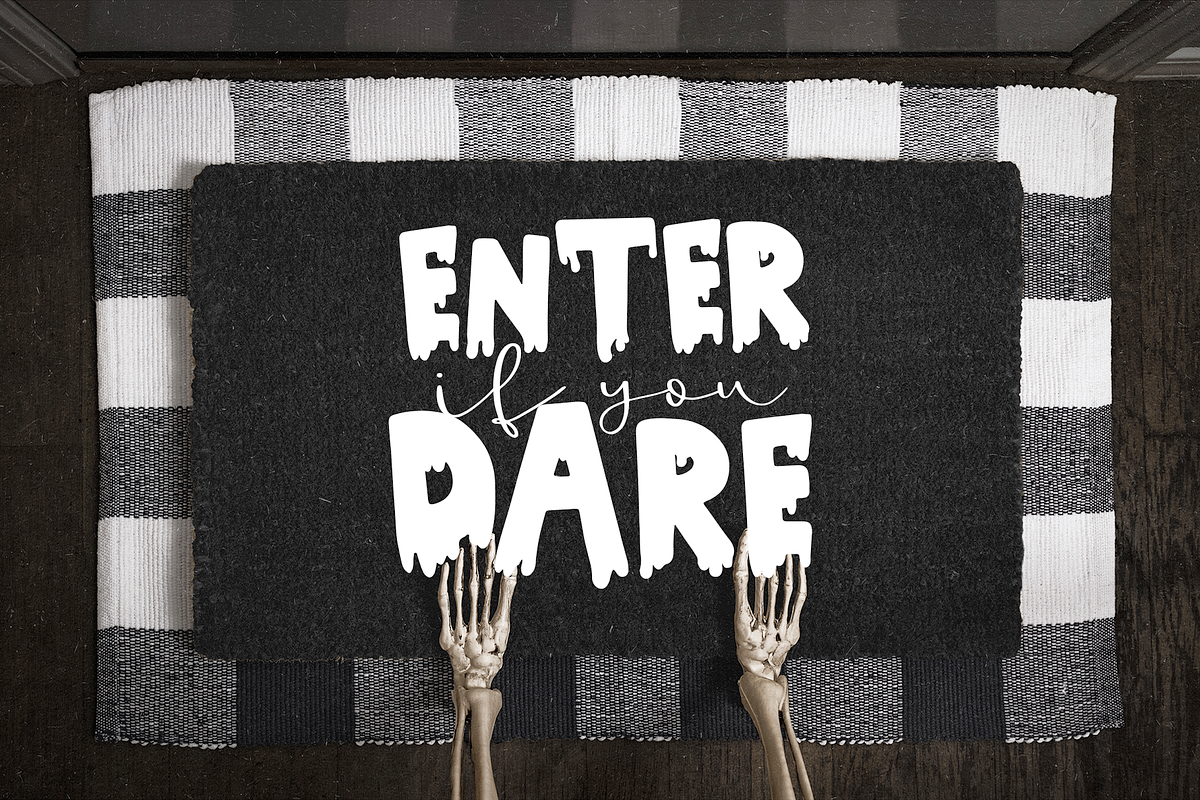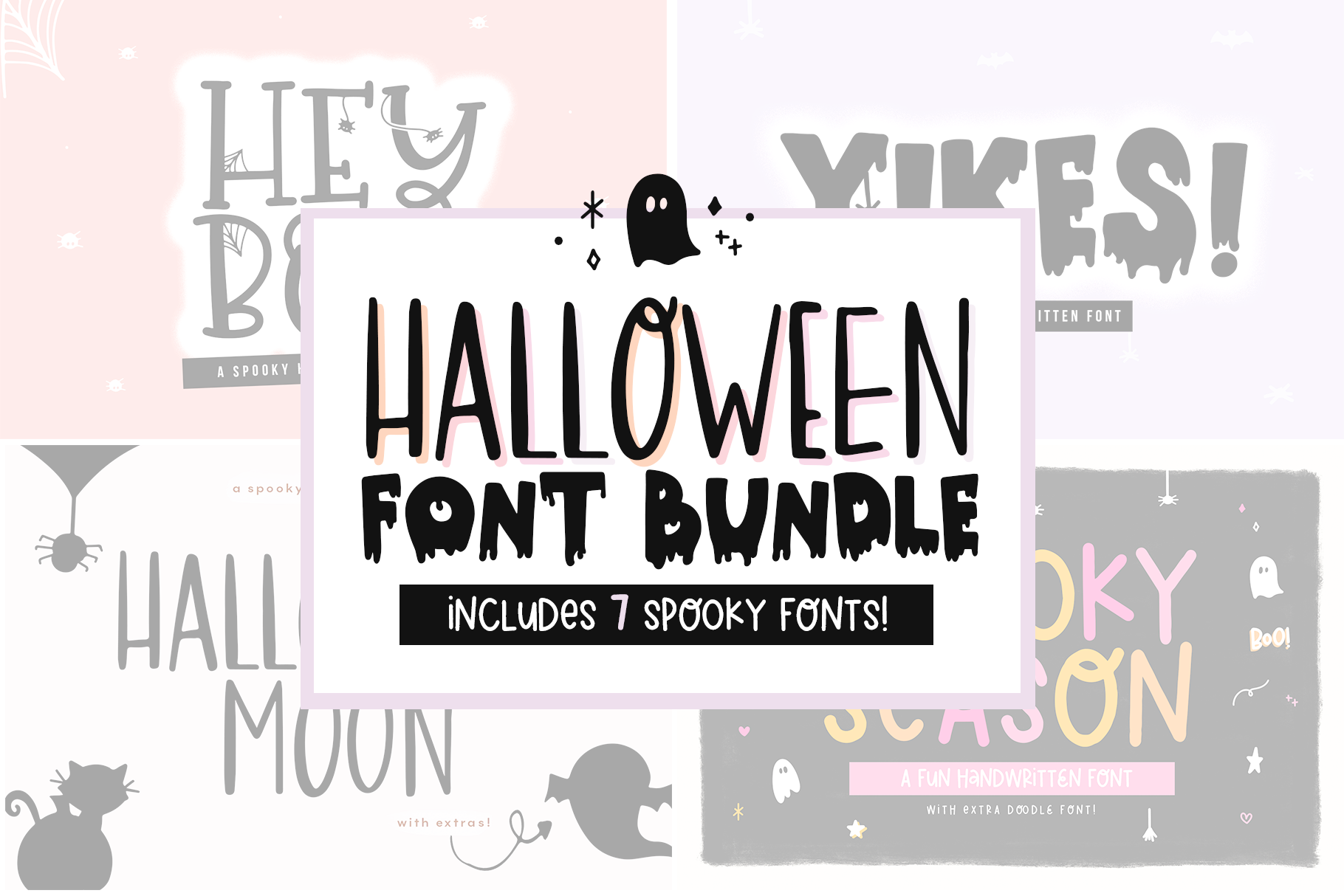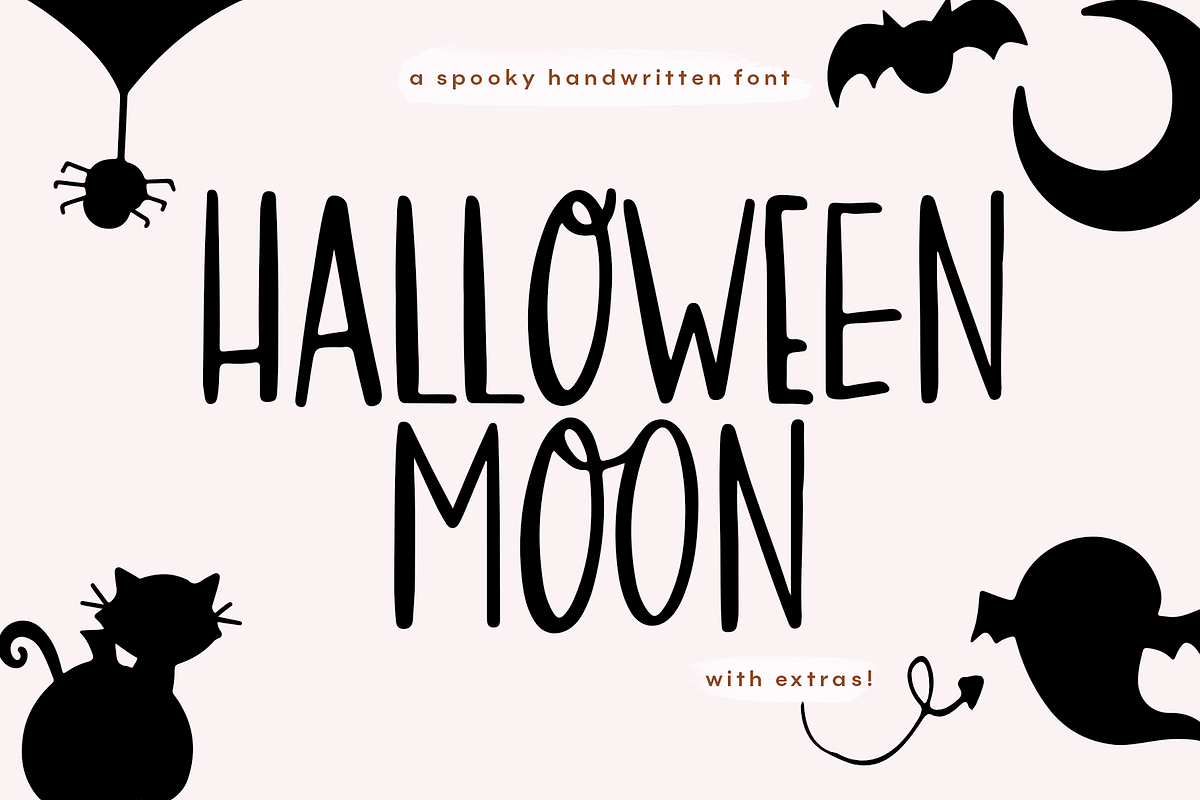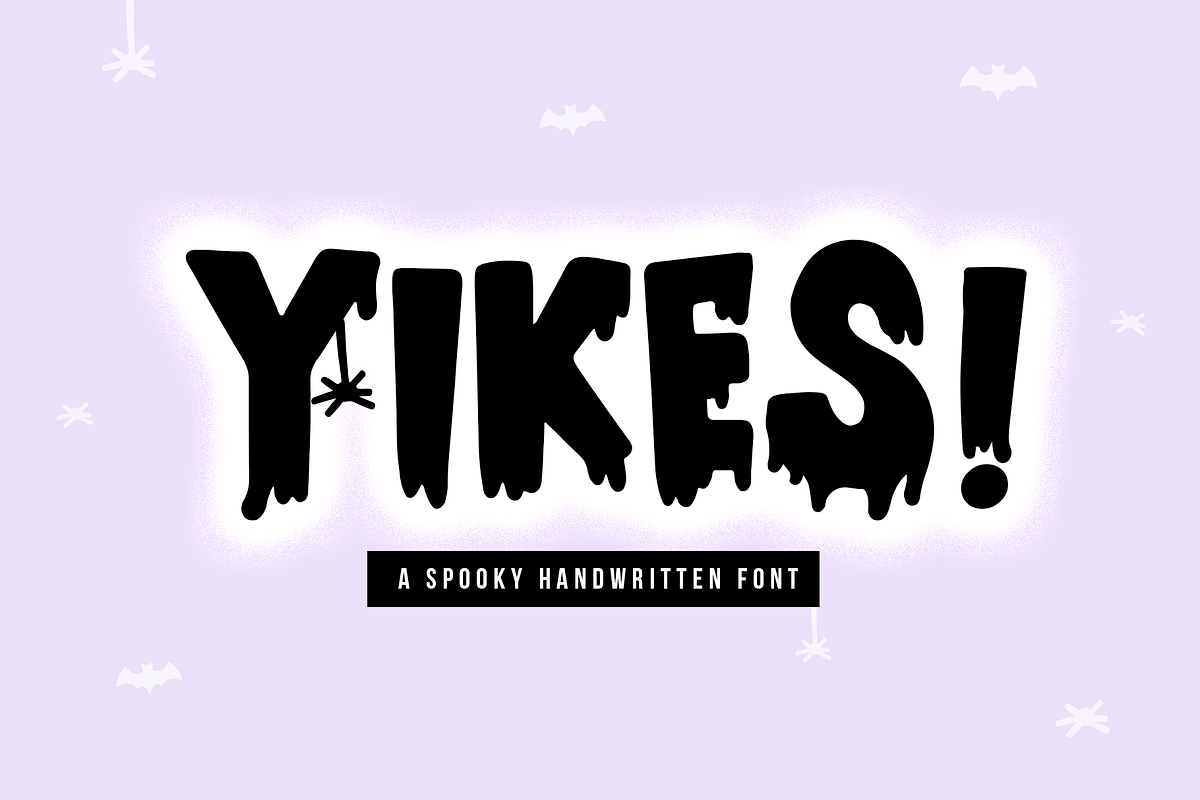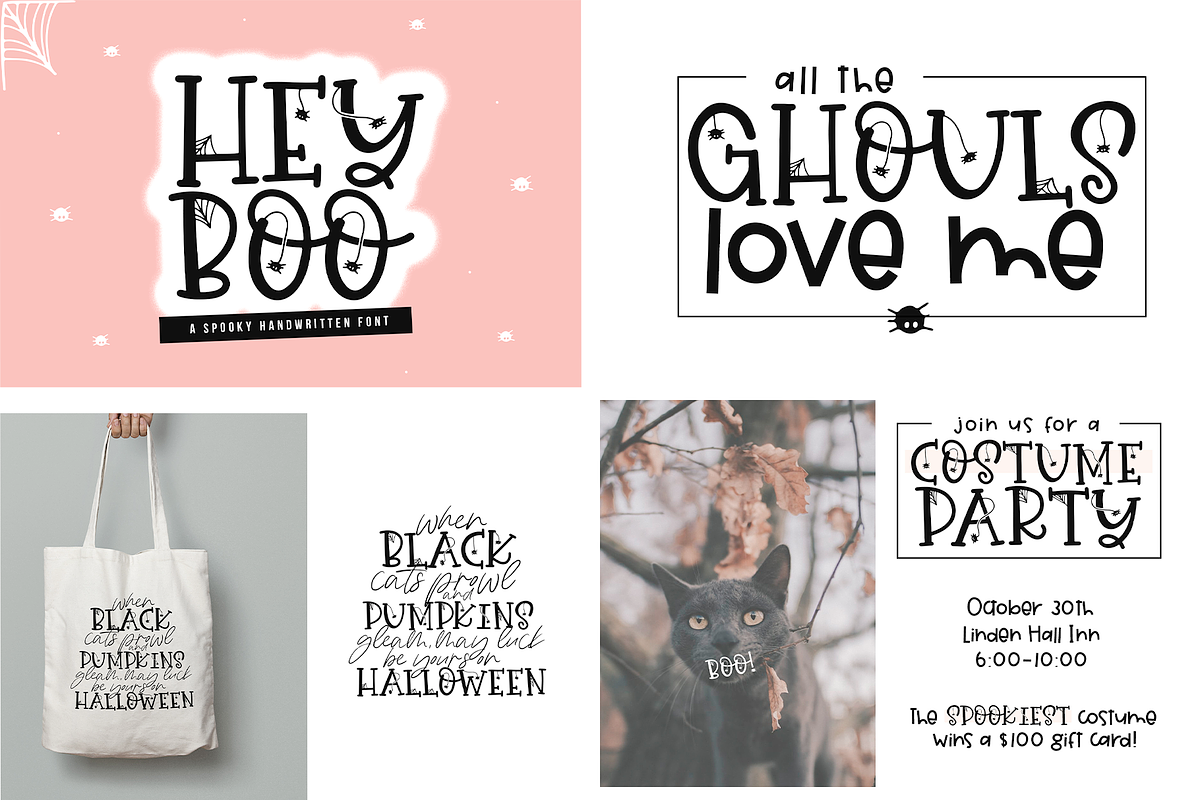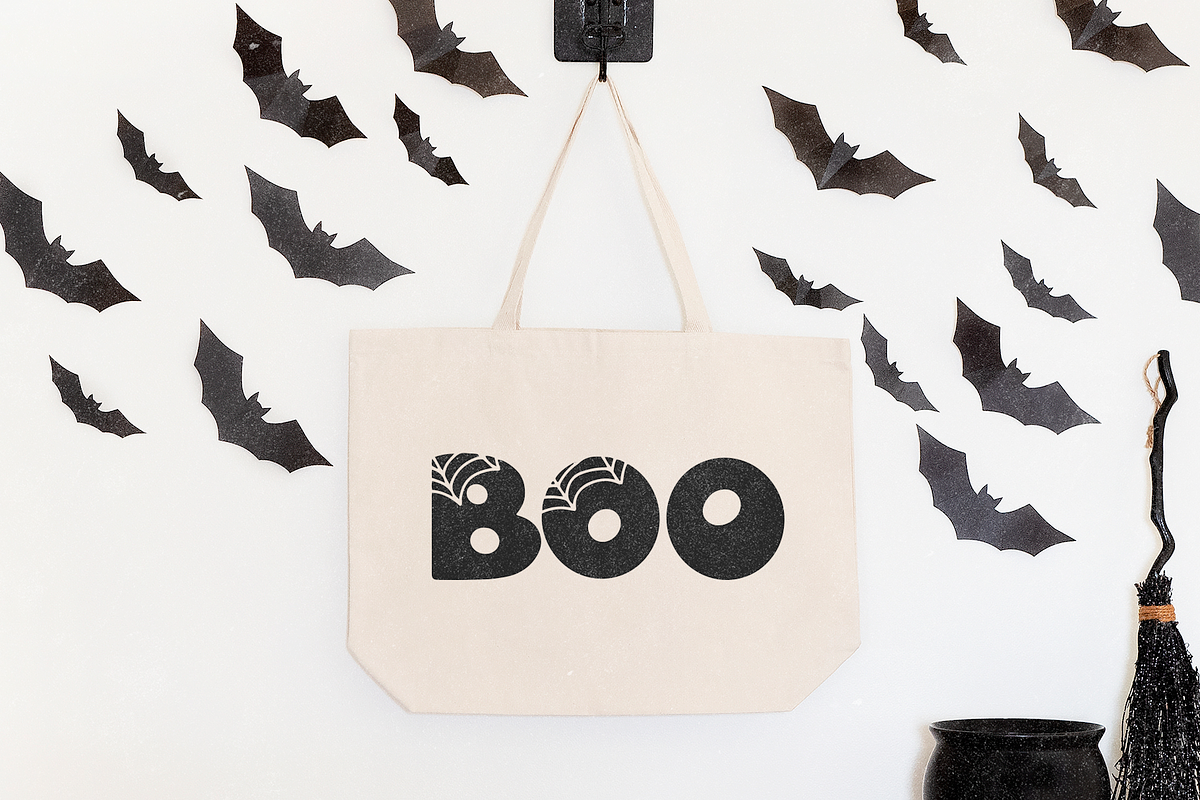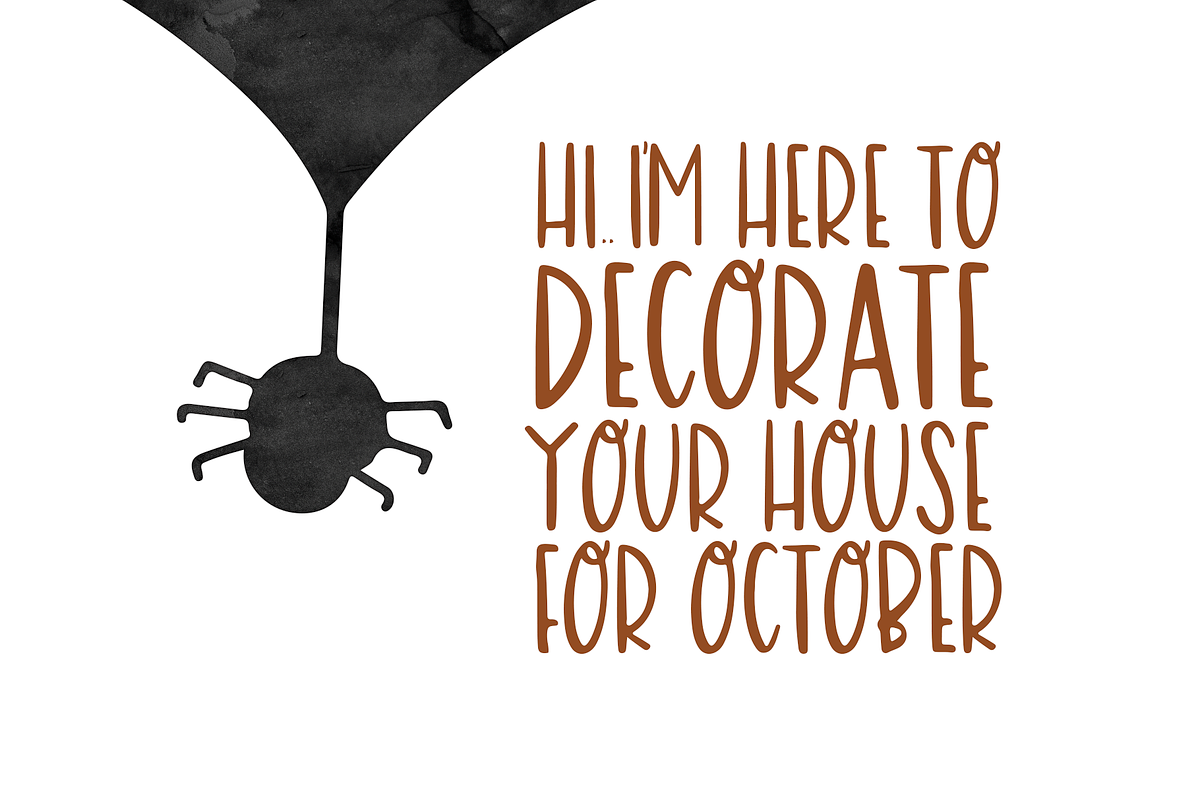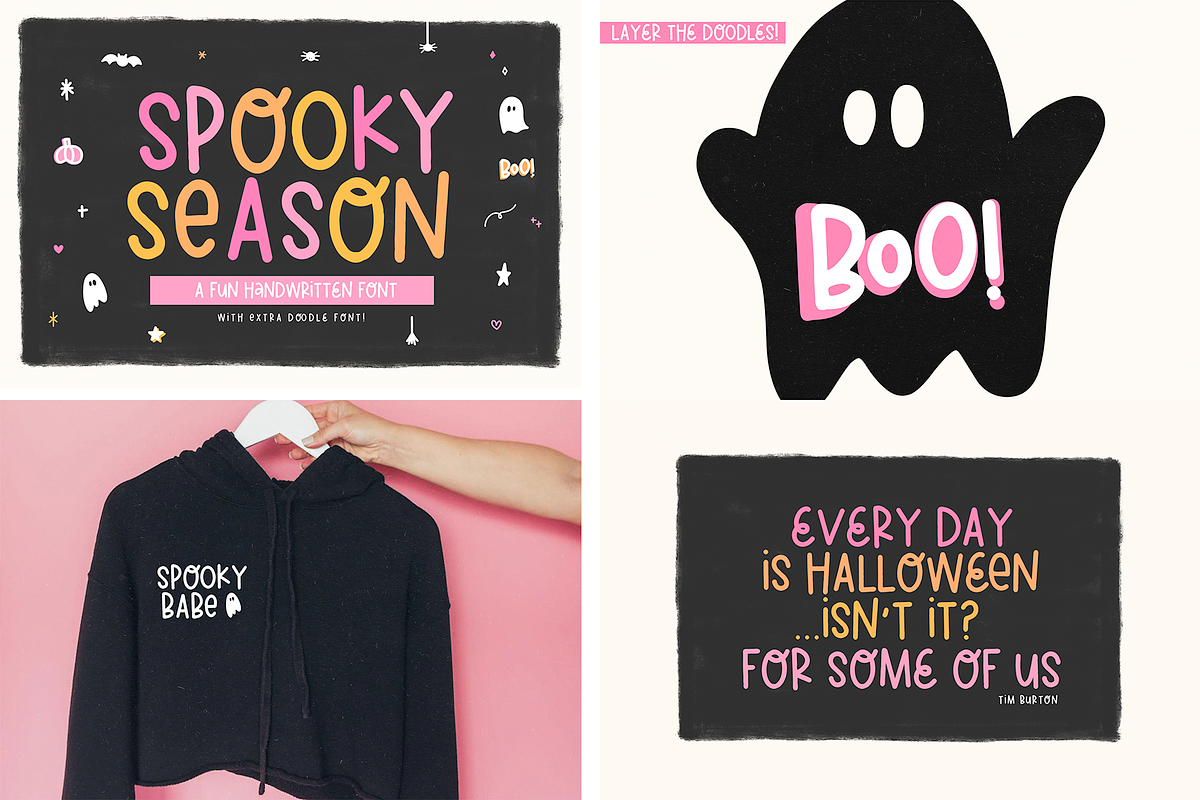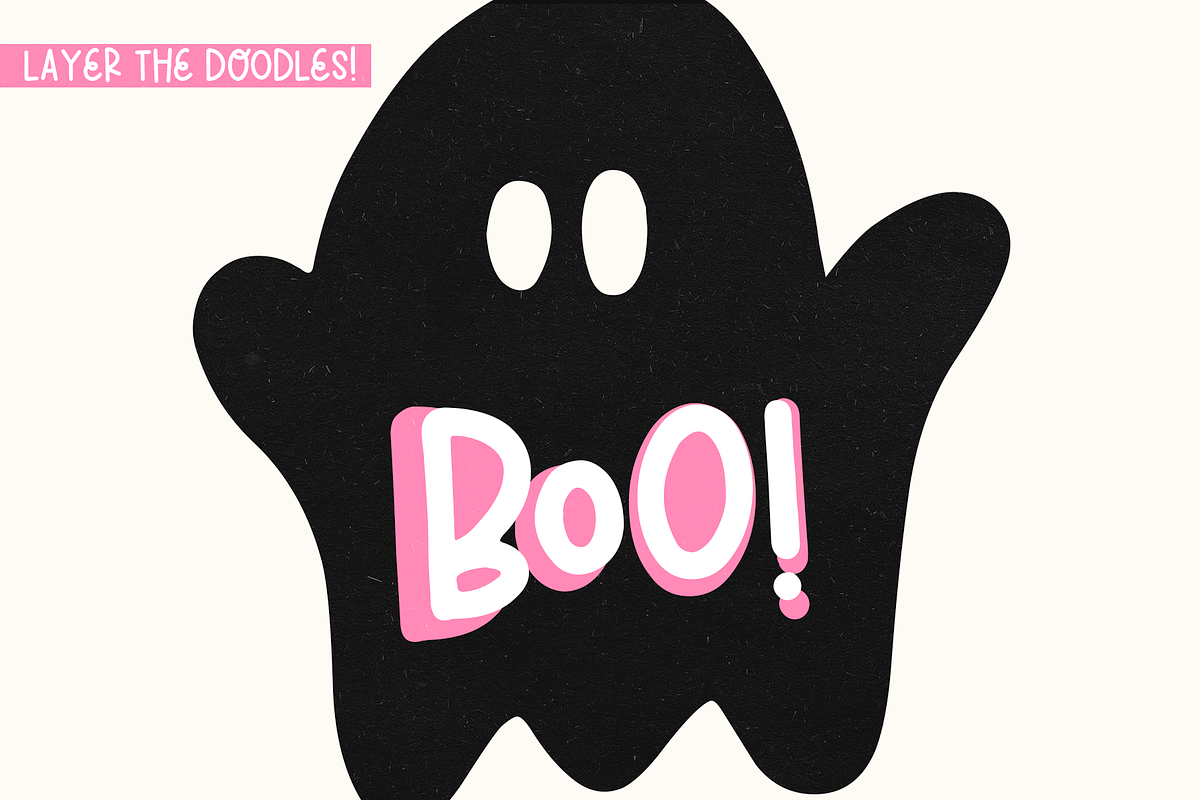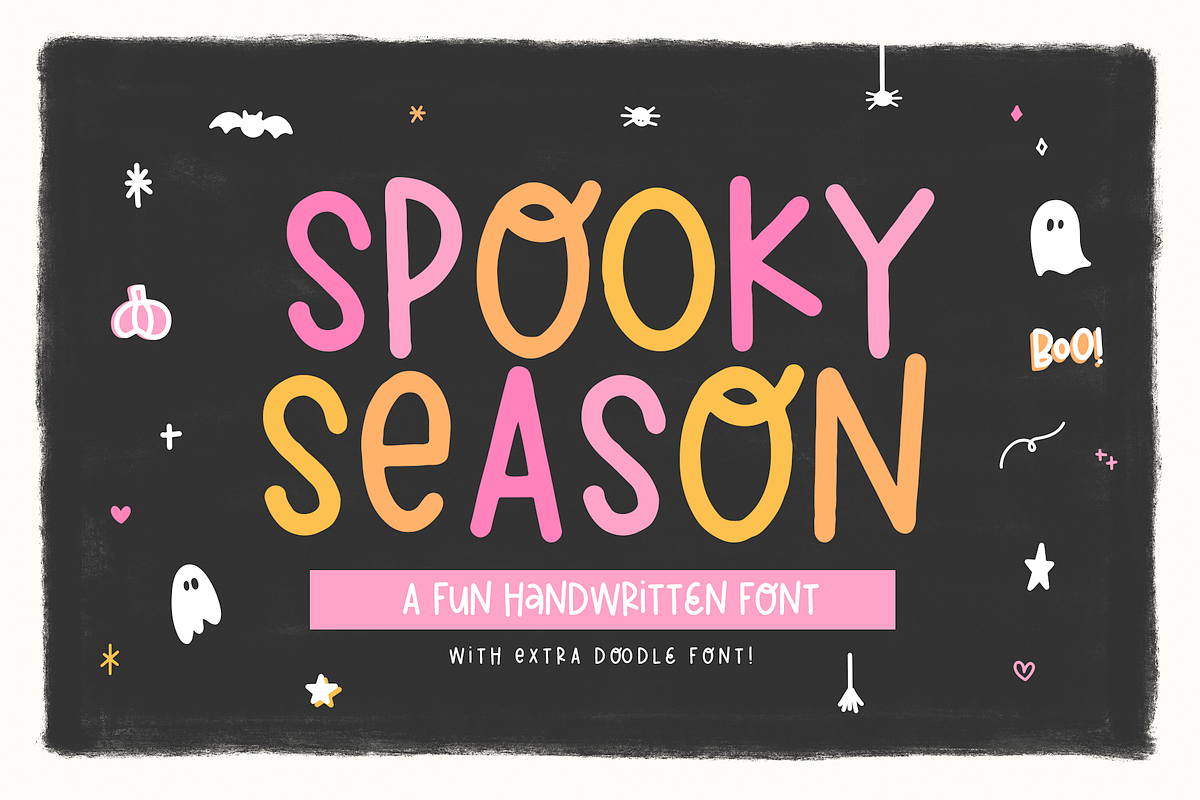
Halloween Font Bundle
HALLOWEEN HANDWRITTEN FONT BUNDLE
Perfect fonts to get a start on all of your fall and halloween crafts, svg designs, shirts, stickers, procreate, spooky signs and more!
Fonts Included:
- Spooky
- Hey Boo
- Yikes
- Halloween Moon
- Halloween Moon Doodles
- Spooky Splits
- Spooky Season
- Spooky Season Doodles